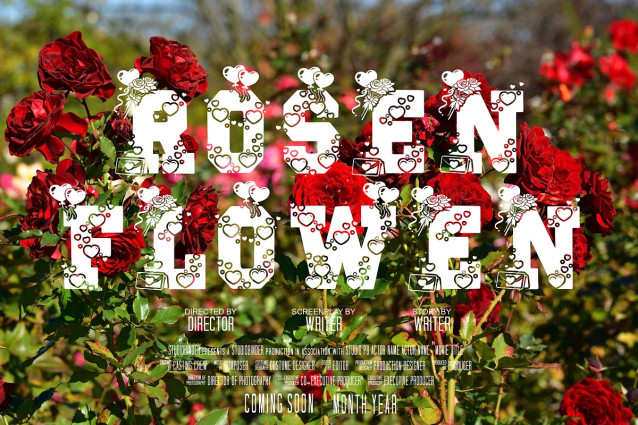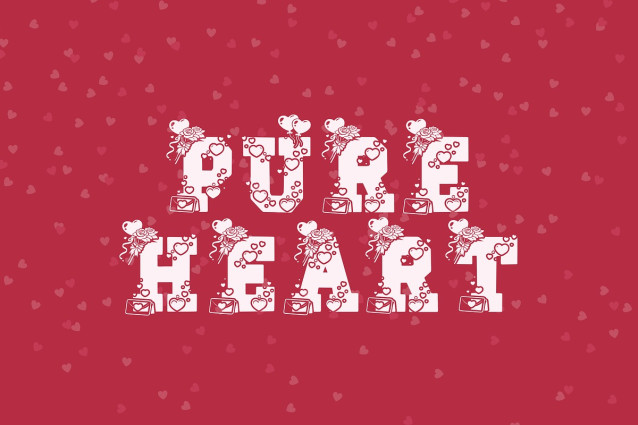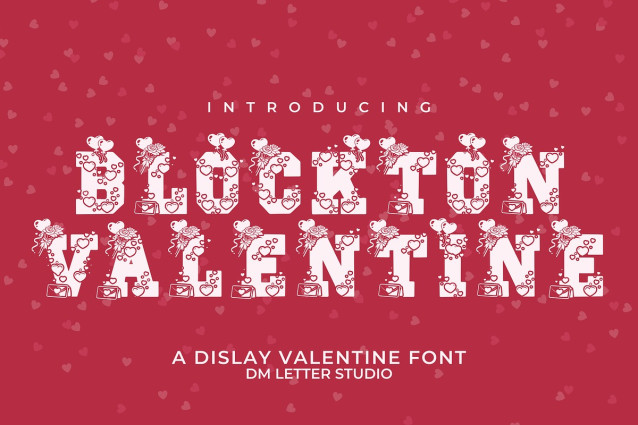
Blockton Valentine Font
Blockton Valentine Font is a bold display font built with strong block letterforms and a playful Valentine twist. It feels confident, fun, and eye-catching, while still staying clean and readable. The shapes are chunky and well balanced, so the font works beautifully for both small Valentine items and large headlines. Use it for Valentine cards, gift packaging, posters, apparel, stickers, mugs, classroom decor, and seasonal branding. As a result, your Valentine designs feel bold, cheerful, and instantly noticeable.
Fast layouts with the Blockton Valentine Font
Start with short, punchy words like greetings or phrases. After that, add supporting text in a clean sans font to keep everything readable. Because Blockton Valentine has solid geometry, it works especially well in badges, stacked layouts, and boxed designs. In addition, it shines on heart shapes, labels, and sticker-style compositions. Finally, try color pairs like pink & red, cherry & cream, blush & charcoal, or red & kraft to lock in the Valentine mood.